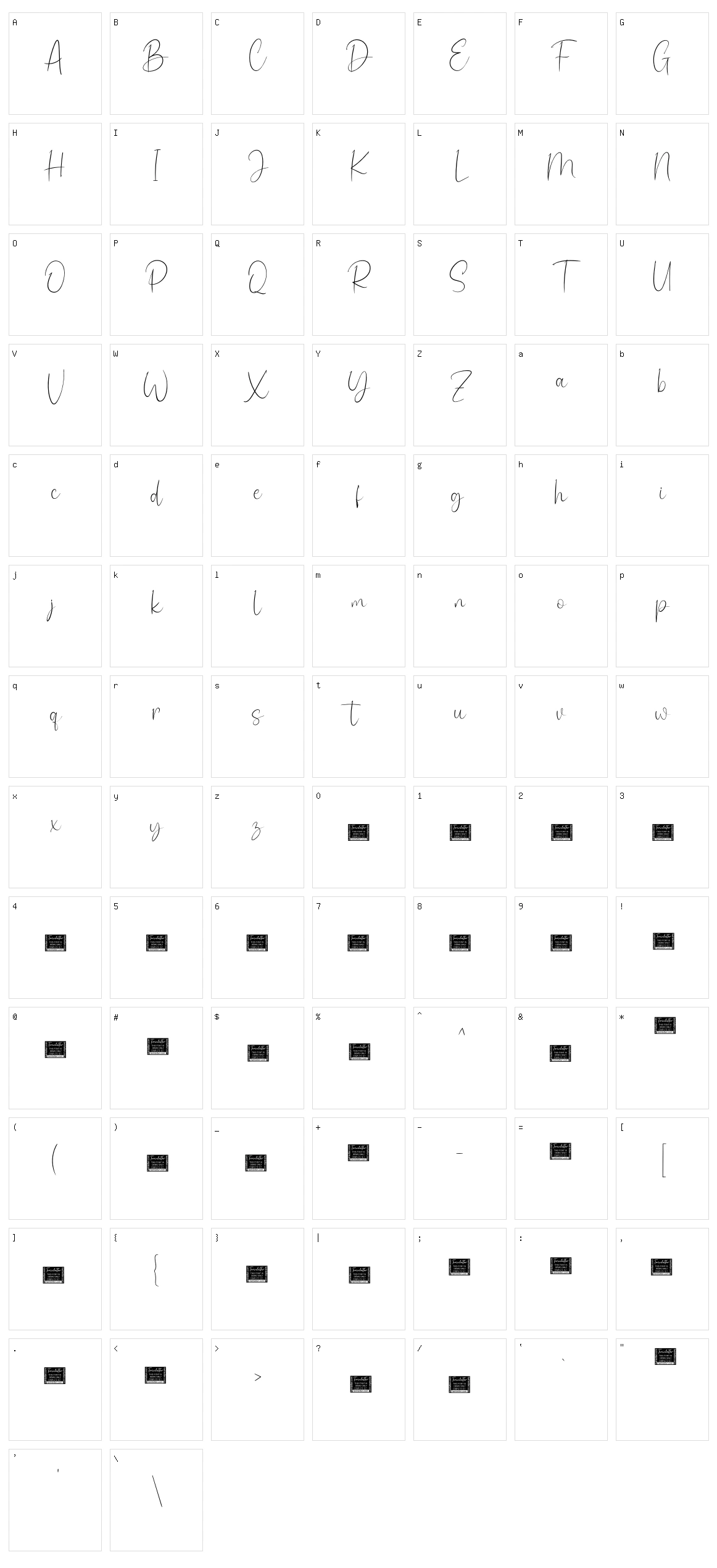
The free font Rydhesti is carefully designed by twinletter, showcasing a thoughtful balance of creativity and usability and falls under the Script font style. When you download the ZIP file, it contains only 81.1 KB of font files, making it lightweight and quick to download. Please review the license details below to understand permitted usage and distribution rights. If license information is not available, we recommend using this font for personal projects only or contacting the author directly for commercial usage permissions.